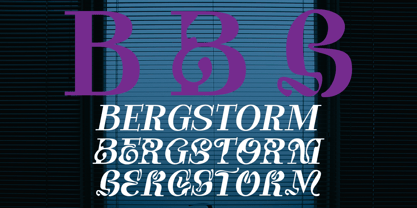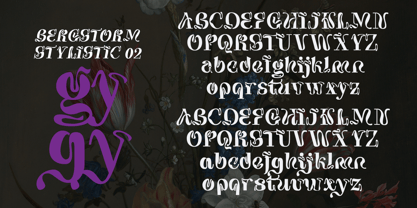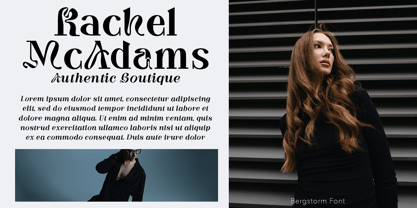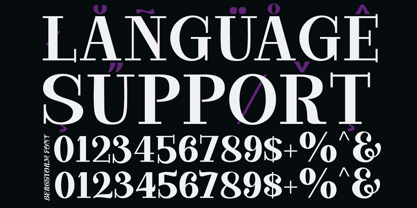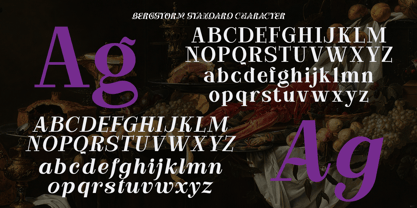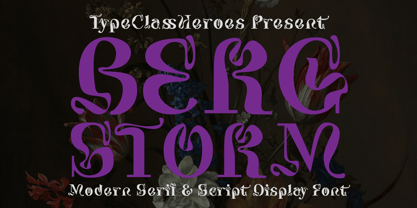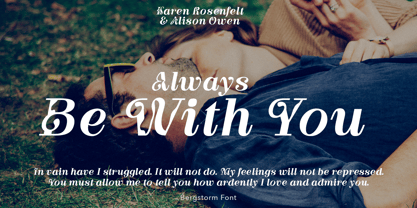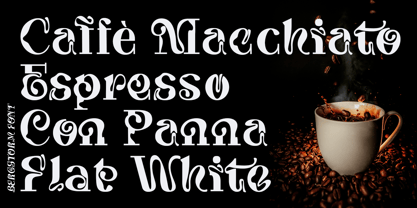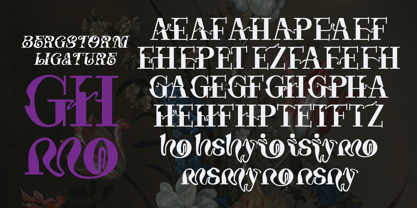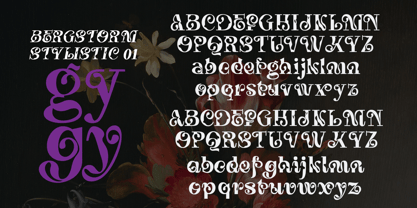
Bergstorm
by TypeClassHeroes
The Bergstorm Font Family was designed by Suandana ipandemade and published by TypeClassHeroes. Bergstorm contains 4 styles and family package options. More about this family
There is a combination of Script and Serif that makes this font ideal for logos, headlines, and other projects that require a refined and professional font. Elegant condensed display font that is perfect for creating sleek and modern classic feels designs. It features multiple alternates and ligatures making it a versatile choice.
Designers: Suandana ipandemade
Foundry: TypeClassHeroes